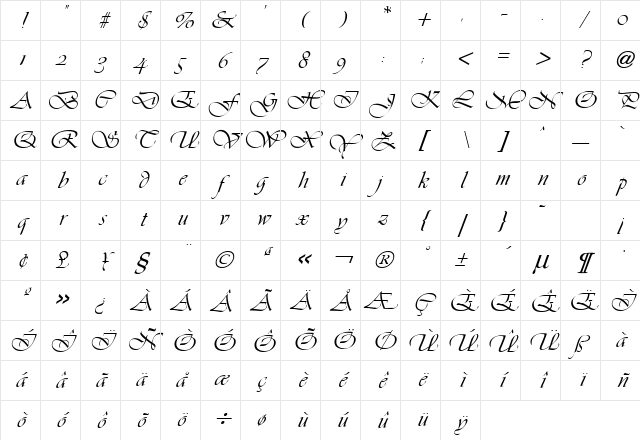
Vivaldi ICG Regular
Design Context for Vivaldi ICG
Vivaldi ICG is a composed and adaptable typeface that performs quietly and consistently across a wide range of design contexts.
Pro Tip: Use Vivaldi ICG in both headline and body roles to test its range before committing to a single application.